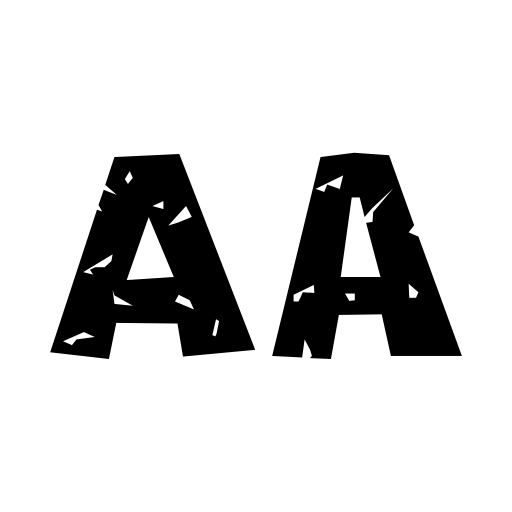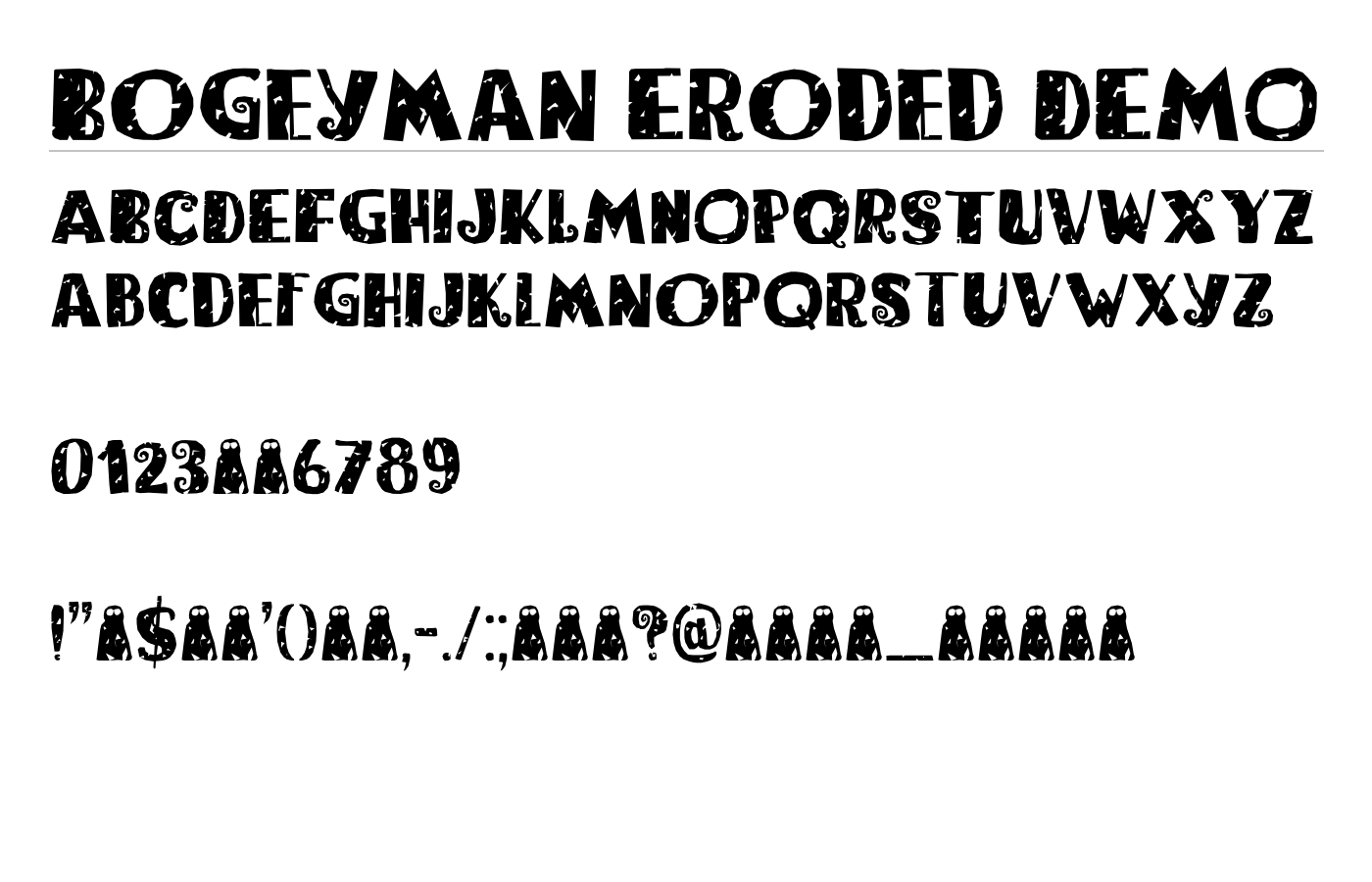
Bogeyman Eroded DEMO is a bold, all-caps display font featuring a distressed, eroded texture that gives it a gritty, edgy character. Its thick, blocky letterforms with uneven, rough edges convey a raw and rebellious vibe, making it perfect for eye-catching headlines, posters, and branding with a spooky or horror-themed aesthetic. This font works well when you need to create a strong, impactful impression with a sense of ruggedness and attitude.
Bogeyman Eroded DEMO Font
About Bogeyman Eroded DEMO Font
| Font family | Bogeyman Eroded DEMO Font |